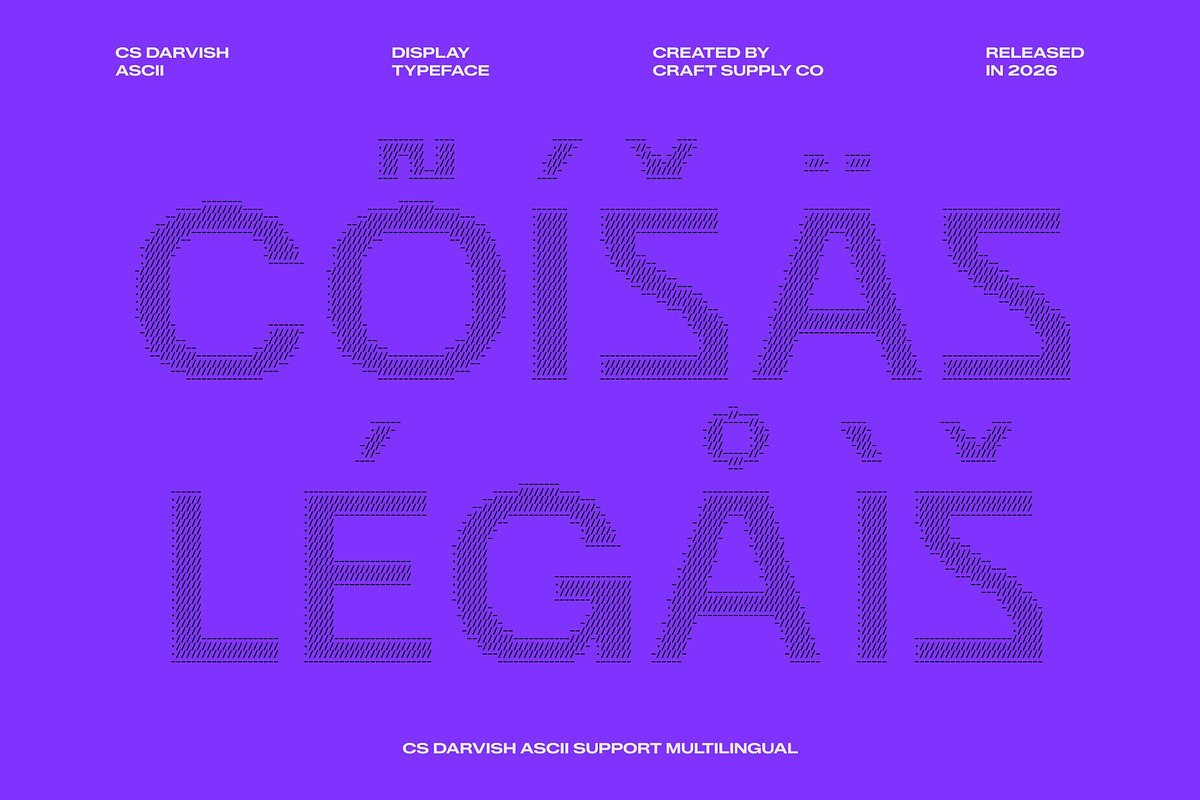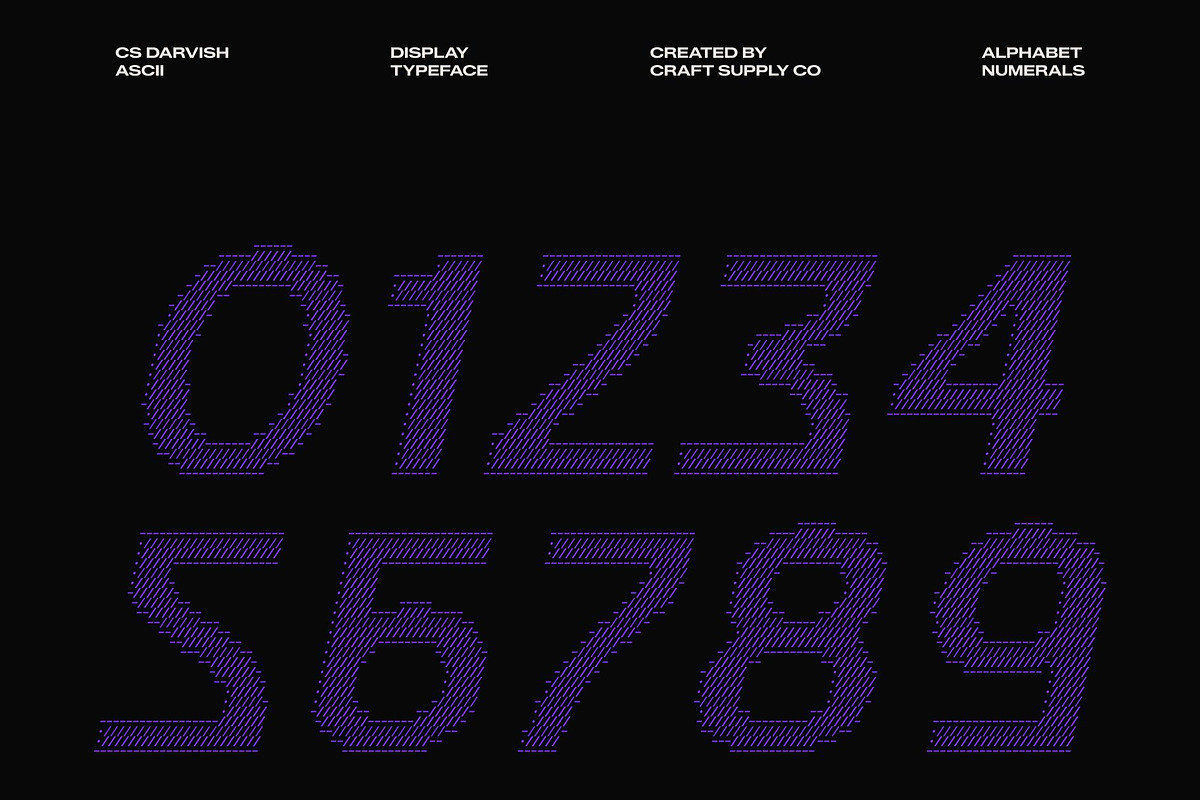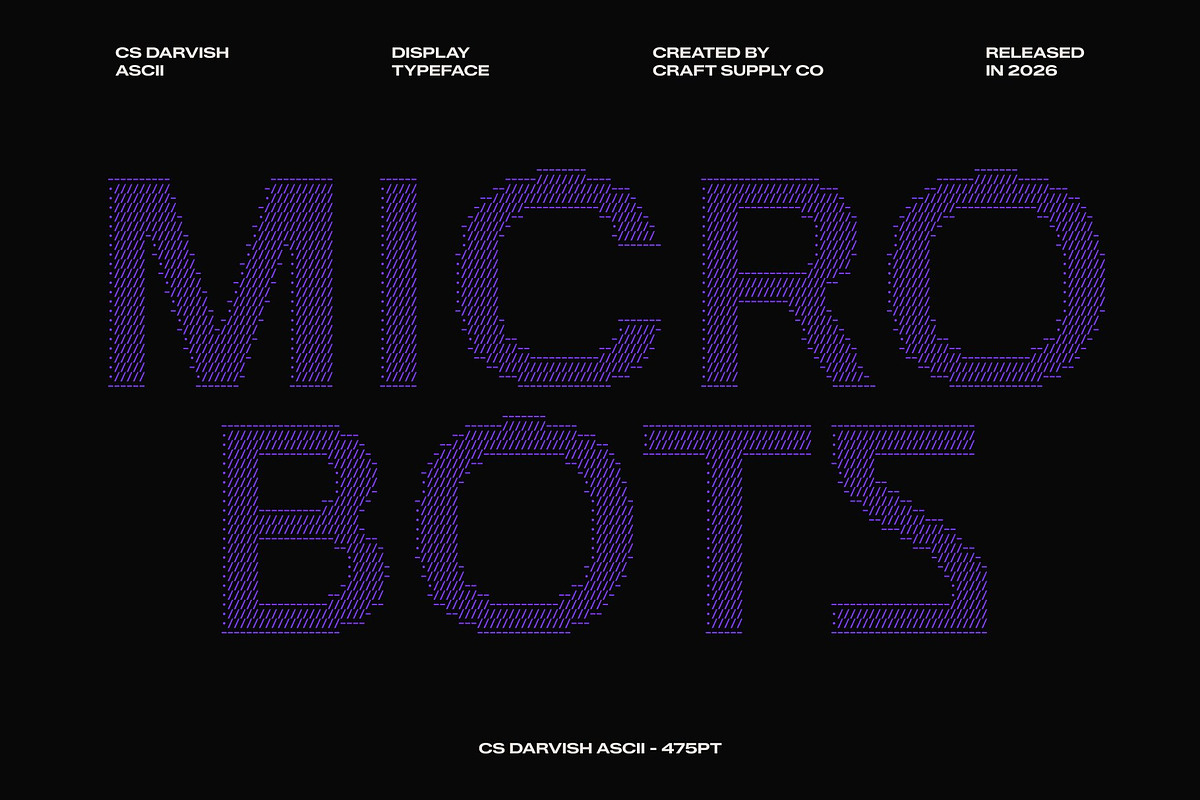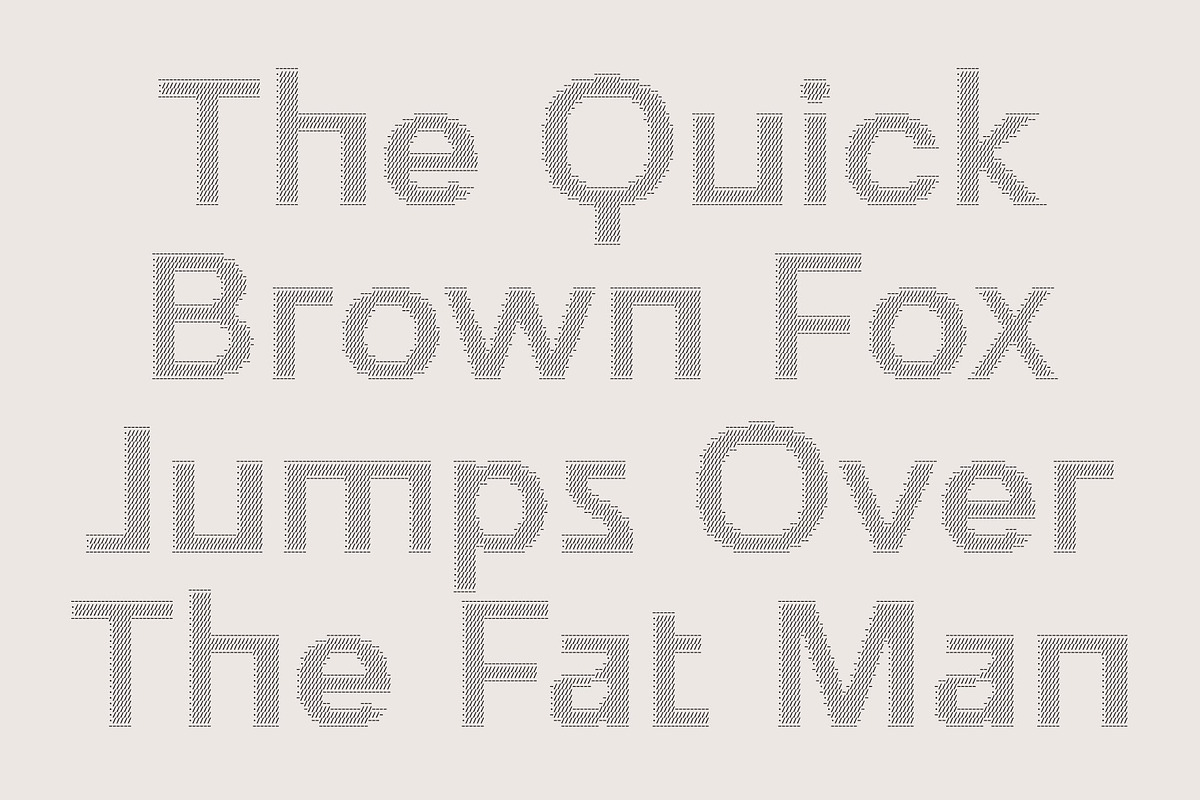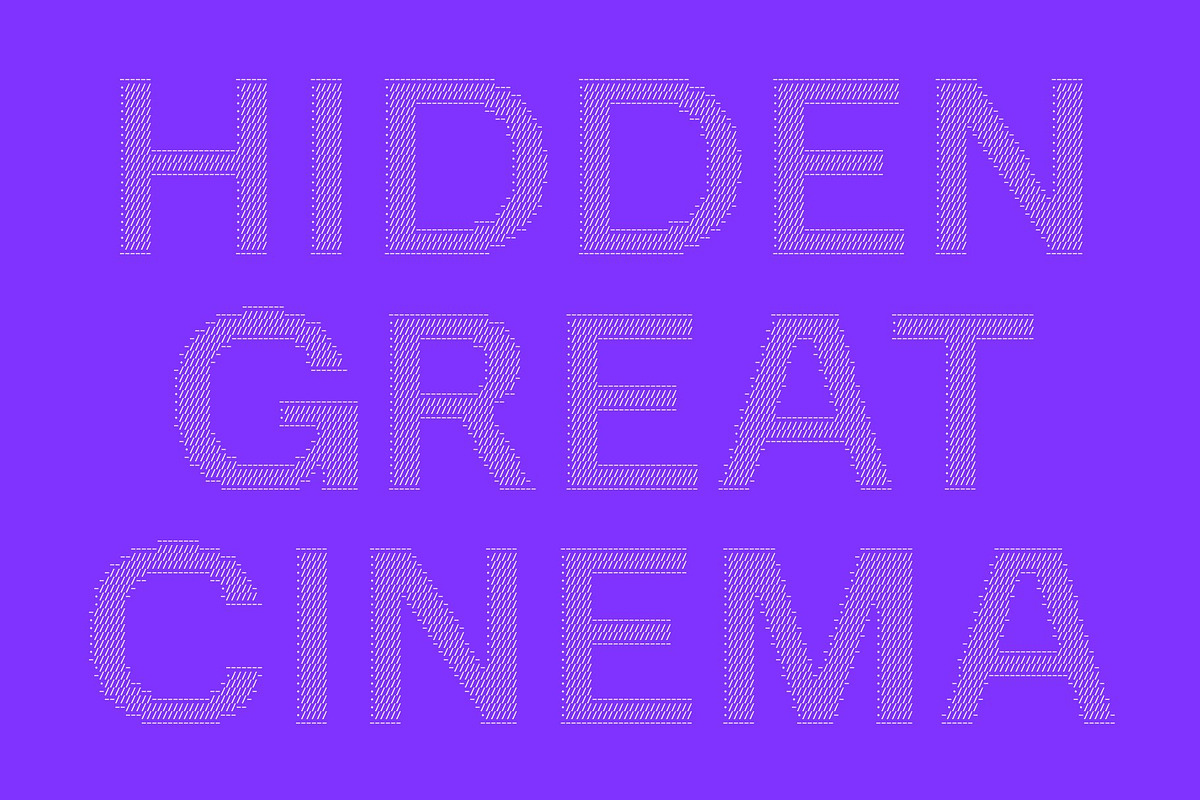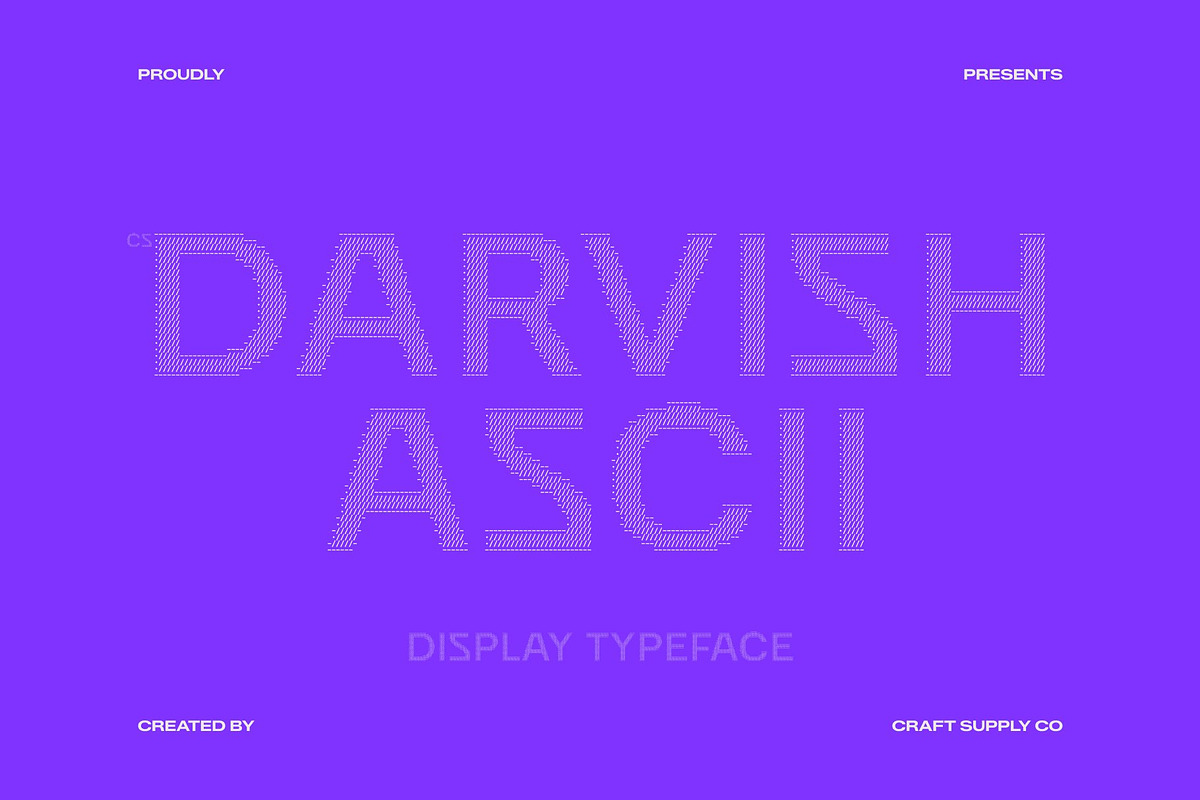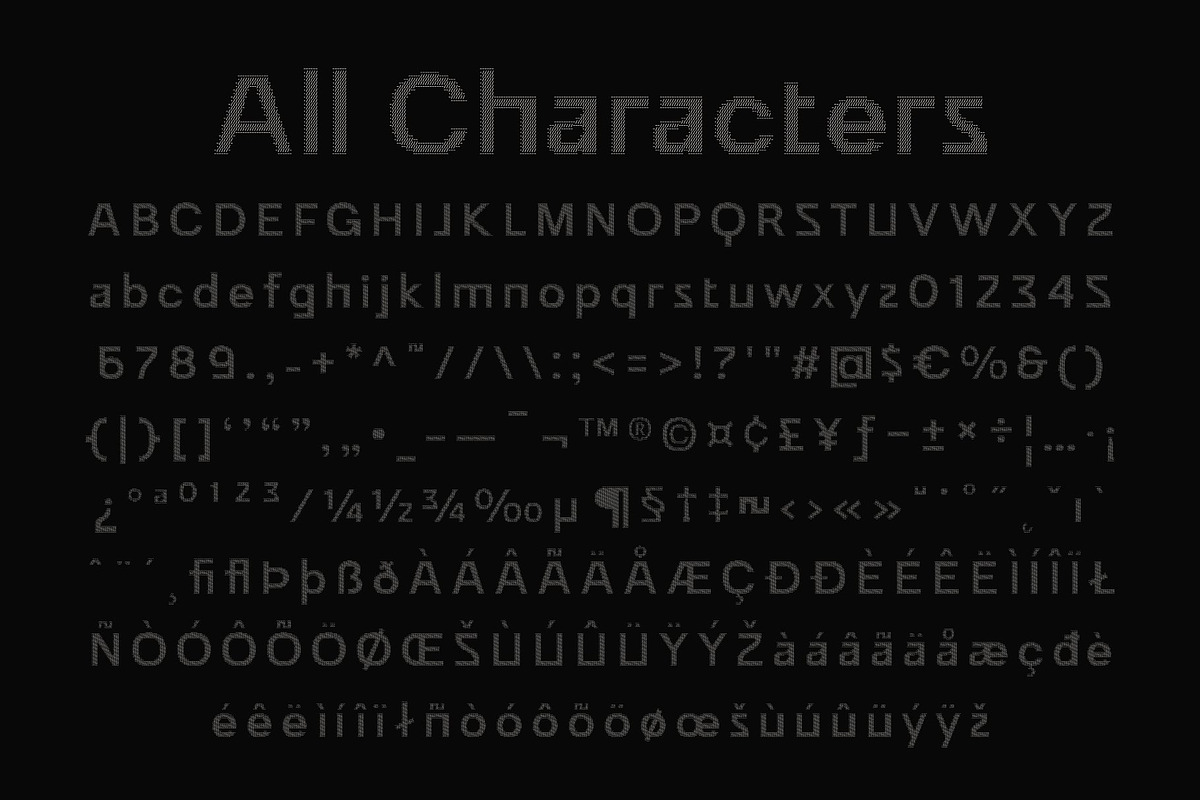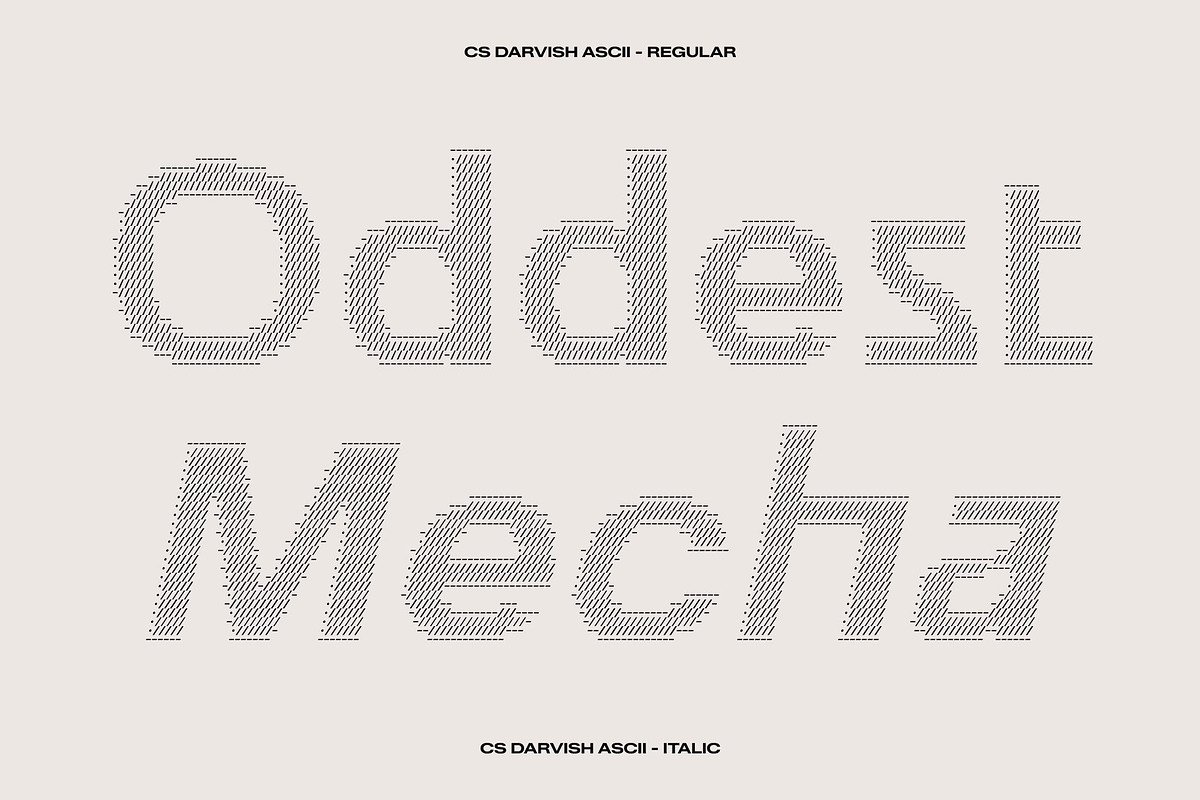
CS Darvish Ascii
CS Darvish Ascii – Sans Serif Typeface: Where Modernity Meets Professionalism
Clean Corporate Structure Reimagined in ASCII This transforms the refined simplicity of a modern corporate sans serif into a structured ASCII display font. Each character is carefully built from arranged symbols, forming clean and organized digital compositions that maintain clarity while introducing a distinctive visual texture. The result is a professional yet expressive typeface that feels both modern and technically refined.
Readability First with Professional Precision Designed with consistent proportions and minimal visual noise, this font prioritizes readability across all applications. The ASCII construction enhances its structured identity without compromising clarity, making every letter feel deliberate, balanced, and easy to interpret. This combination ensures strong communication in environments where precision and professionalism are essential.
Versatile Across Corporate and Digital Media This font adapts seamlessly to branding systems, corporate identities, presentations, web content, publications, and digital interfaces. Its clean and organized appearance makes it ideal for both print and screen-based communication. The ASCII styling adds a subtle modern edge that helps elevate standard corporate typography into something more visually engaging and contemporary.
Perfect for Modern Professional Identity Built for businesses and designers who value clarity and sophistication, this font delivers a strong and trustworthy typographic voice. It works perfectly in official documents, marketing materials, and tech-driven corporate visuals. With its fusion of minimalist sans serif structure and ASCII artistry, turns professional communication into a polished and modern visual experience.
CS Darvish Ascii Regular
CS Darvish Ascii Italic